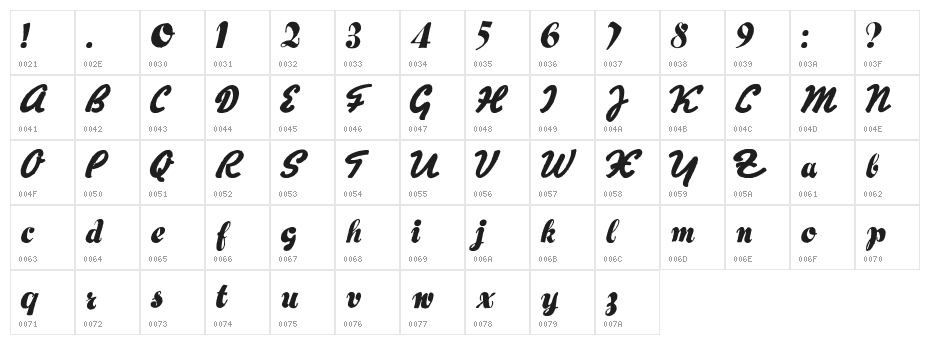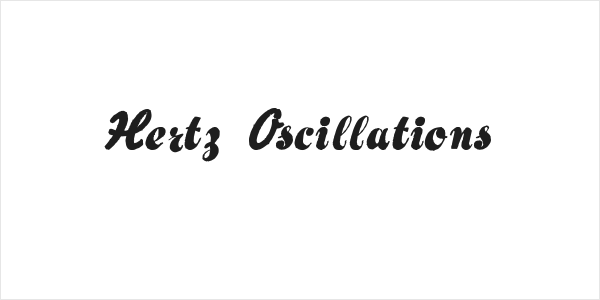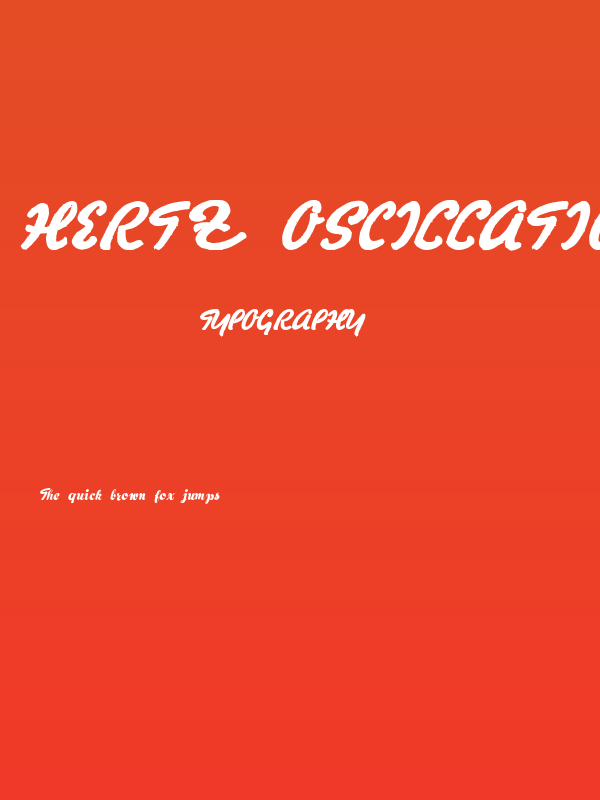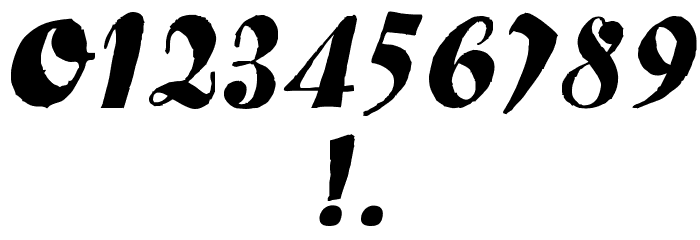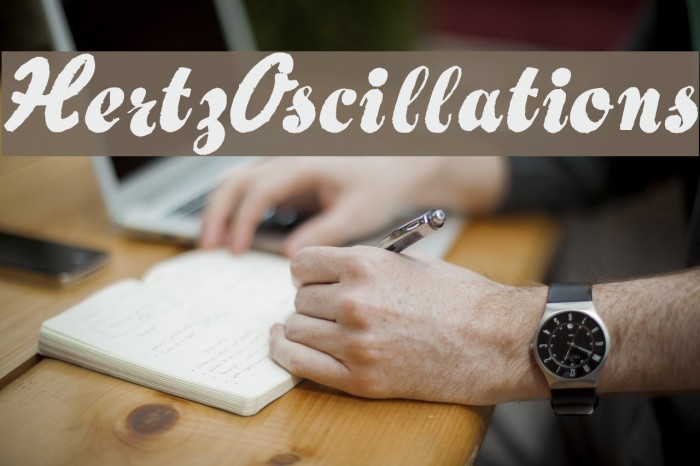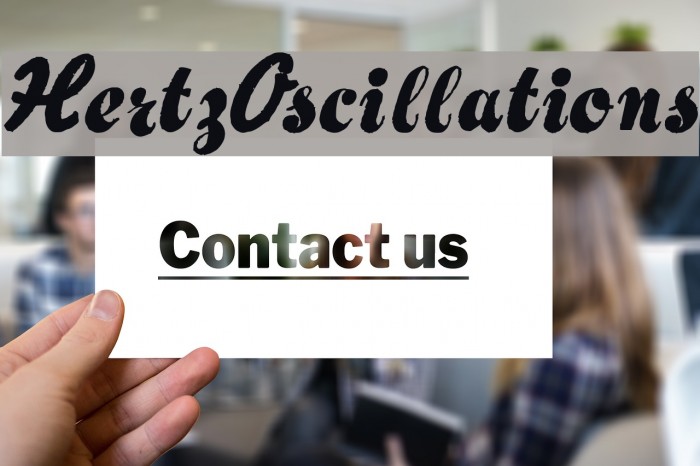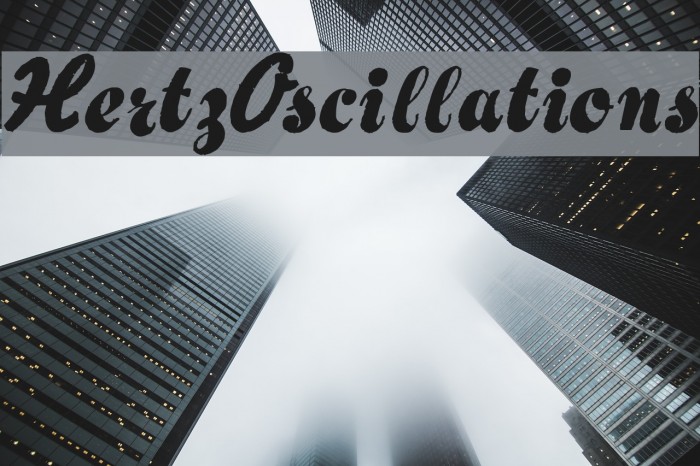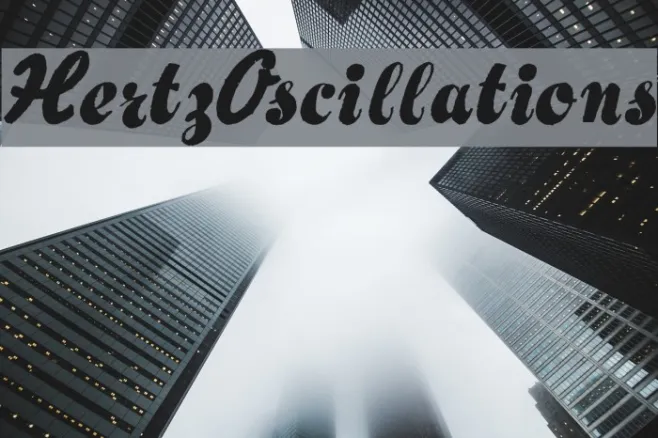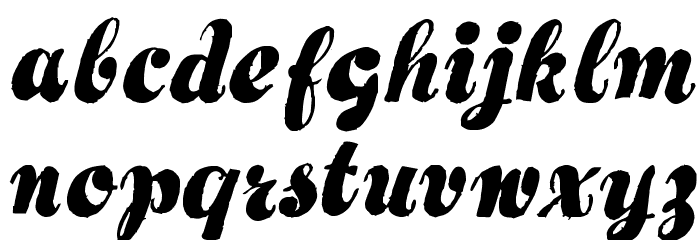
Hertz Oscillations Font
Hertz Oscillations Description
This font exhibits a bold and dynamic script style, characterized by its fluid, cursive strokes and high contrast between thick and thin lines. The uppercase letters are particularly striking, with sweeping curves and dramatic flourishes that convey a sense of elegance and movement. The lowercase letters maintain a consistent style, offering a harmonious flow that complements the uppercase set. Numbers and special characters are designed with the same attention to detail, ensuring a cohesive look across all elements. This font's bold presence makes it ideal for impactful designs where a touch of sophistication and flair is desired.
| Proposed Projects | Ideal for wedding invitations, luxury branding, elegant posters, and artistic book covers. |